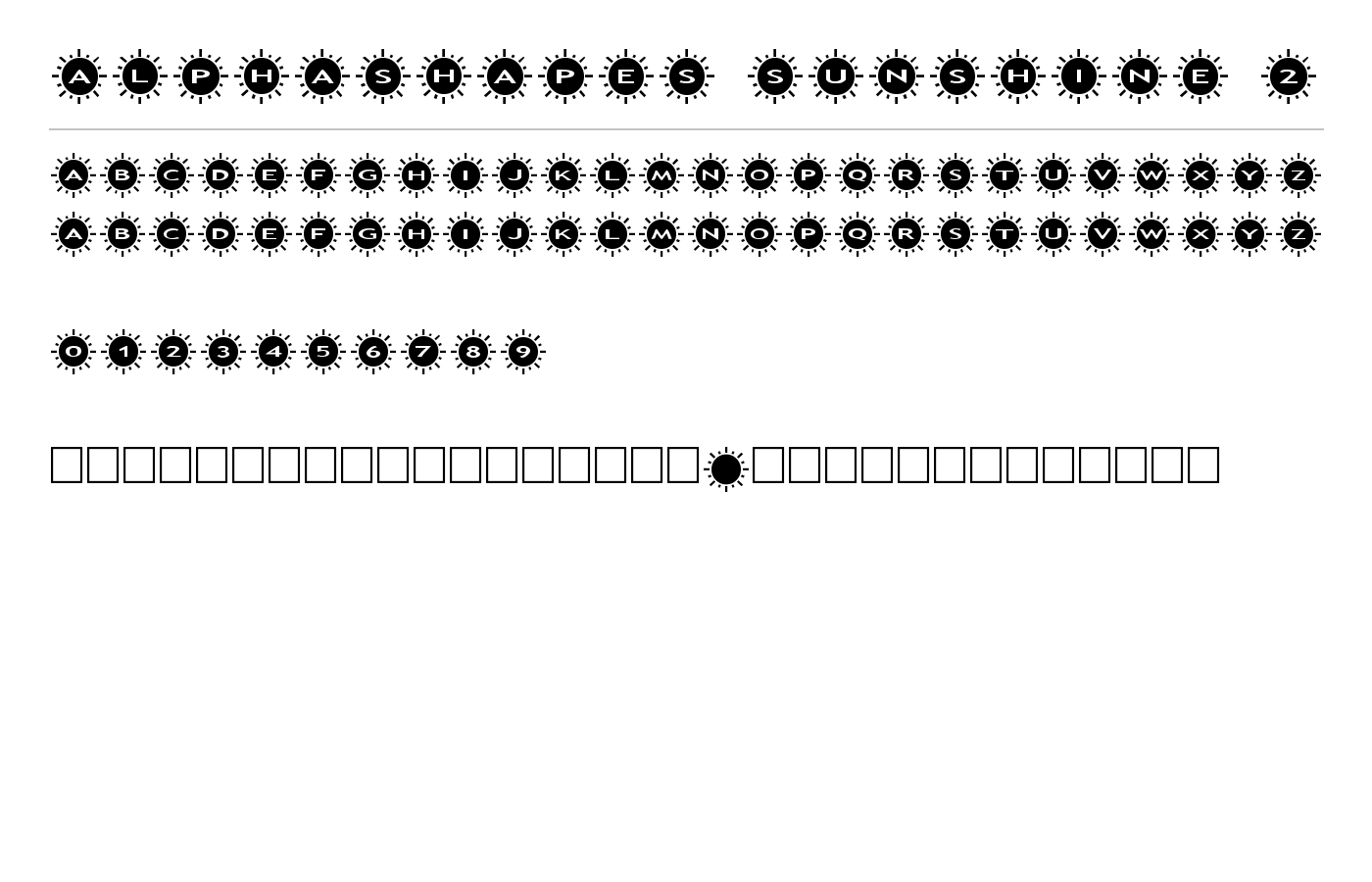
AlphaShapes Sunshine 2 is a playful and decorative font featuring bold, circular letterforms surrounded by radiant sunburst patterns, creating a lively and energetic vibe. This all-caps display typeface is ideal for eye-catching headlines, logos, or designs that aim to convey warmth, fun, and positivity, especially in creative and informal contexts. Its unique sun-inspired styling makes it perfect for summer-themed branding, posters, or any project that benefits from a bright and cheerful touch.
AlphaShapes sunshine 2 Font